Colfax in Use: Hewn
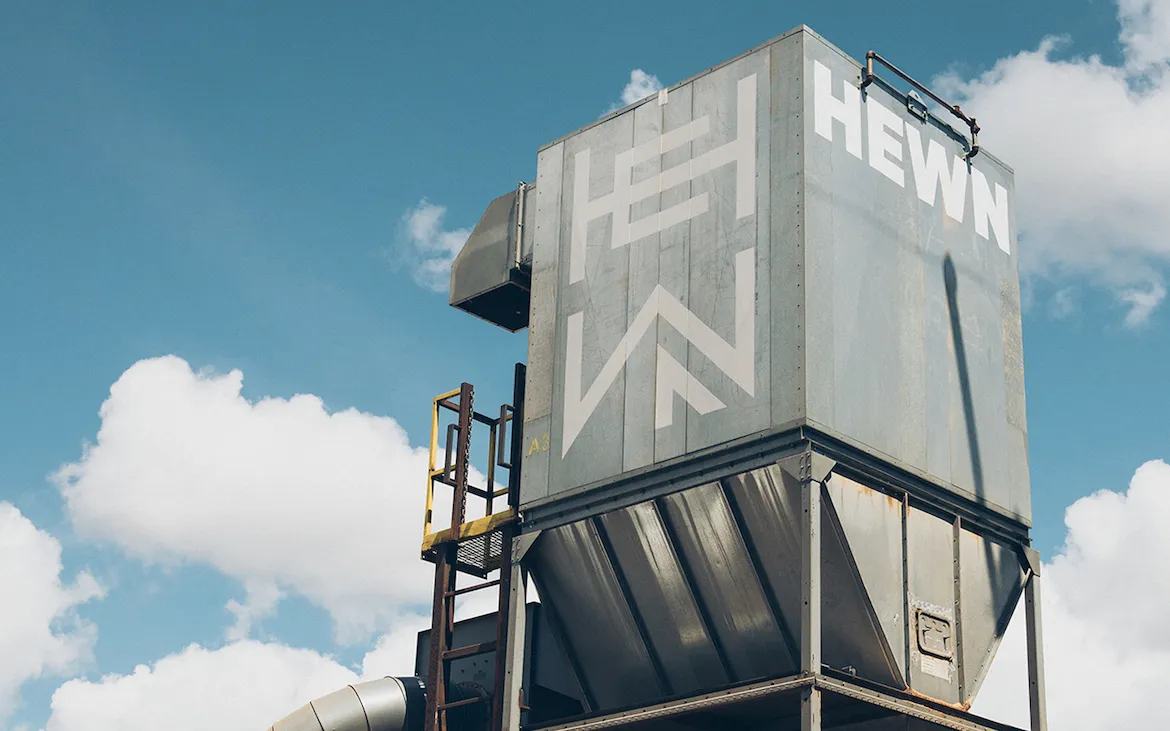
FÖDA, an Austin-based design studio, has renamed and rebranded their neighbor, Hewn, a wood shop, fabricator, and mill. The hefty Colfax Black logo sets the tone – spanning 8’ wide on the hopper above! — and Colfax webfonts extend the identity online. Check out their brand guidelines, patterned business cards, and striking sliding door below.